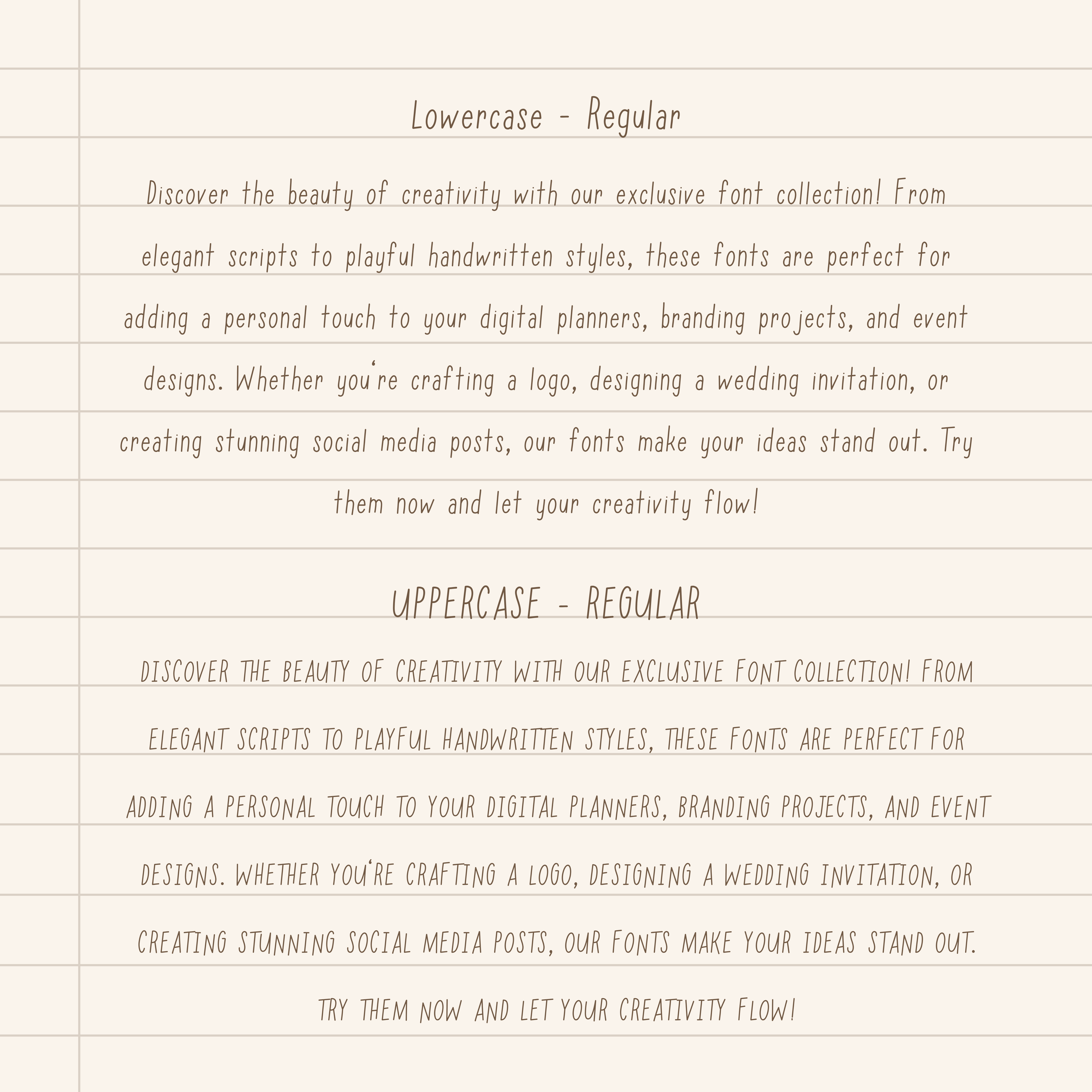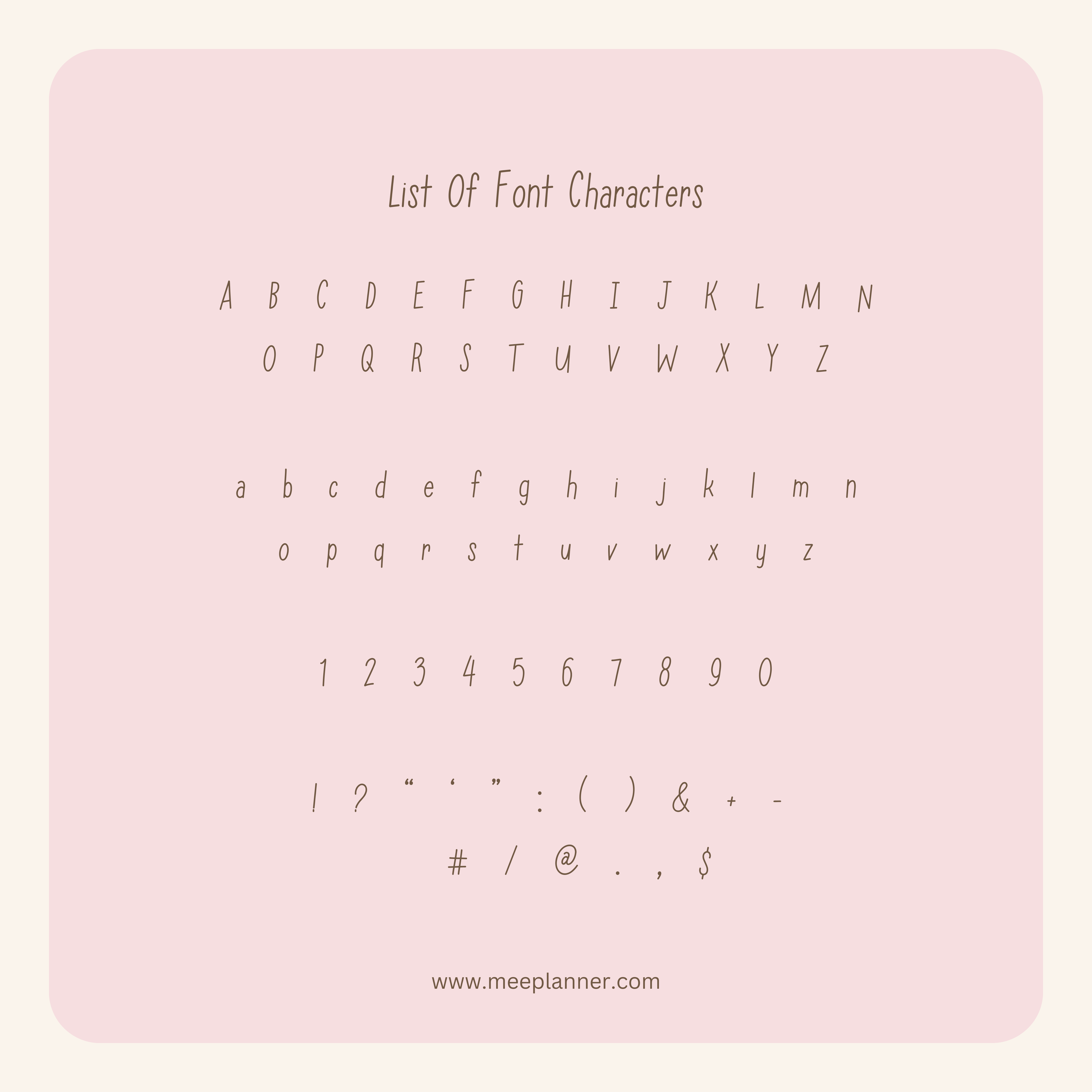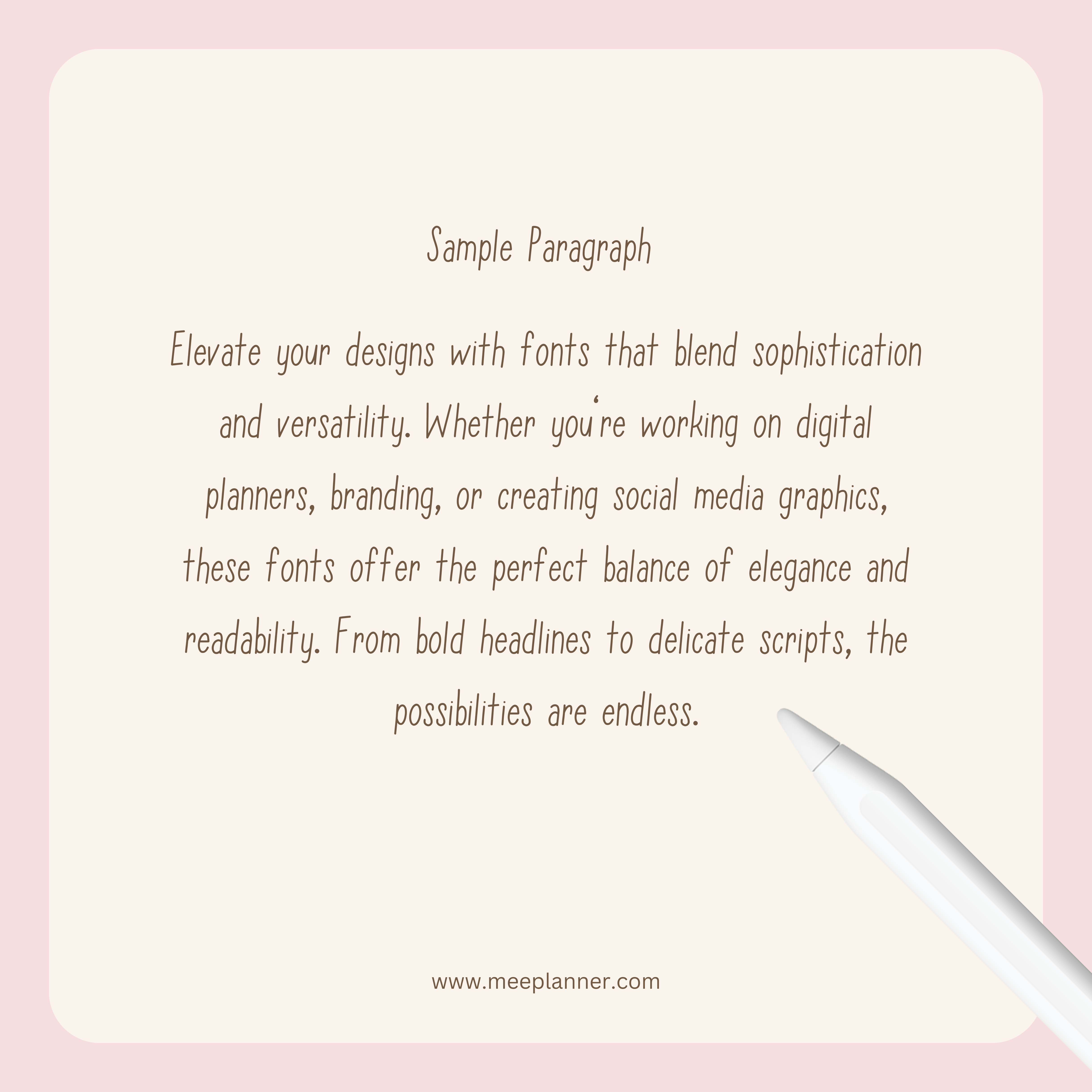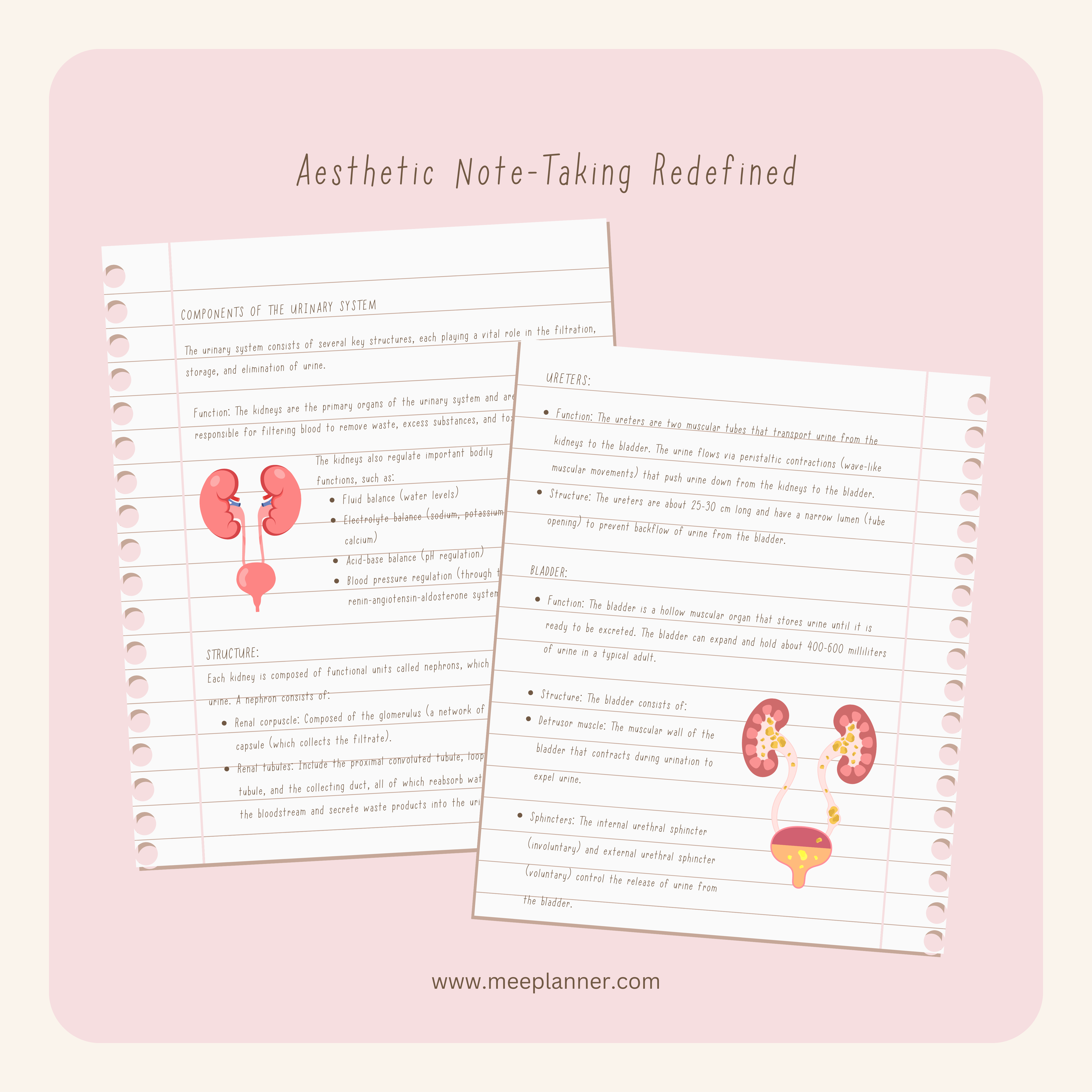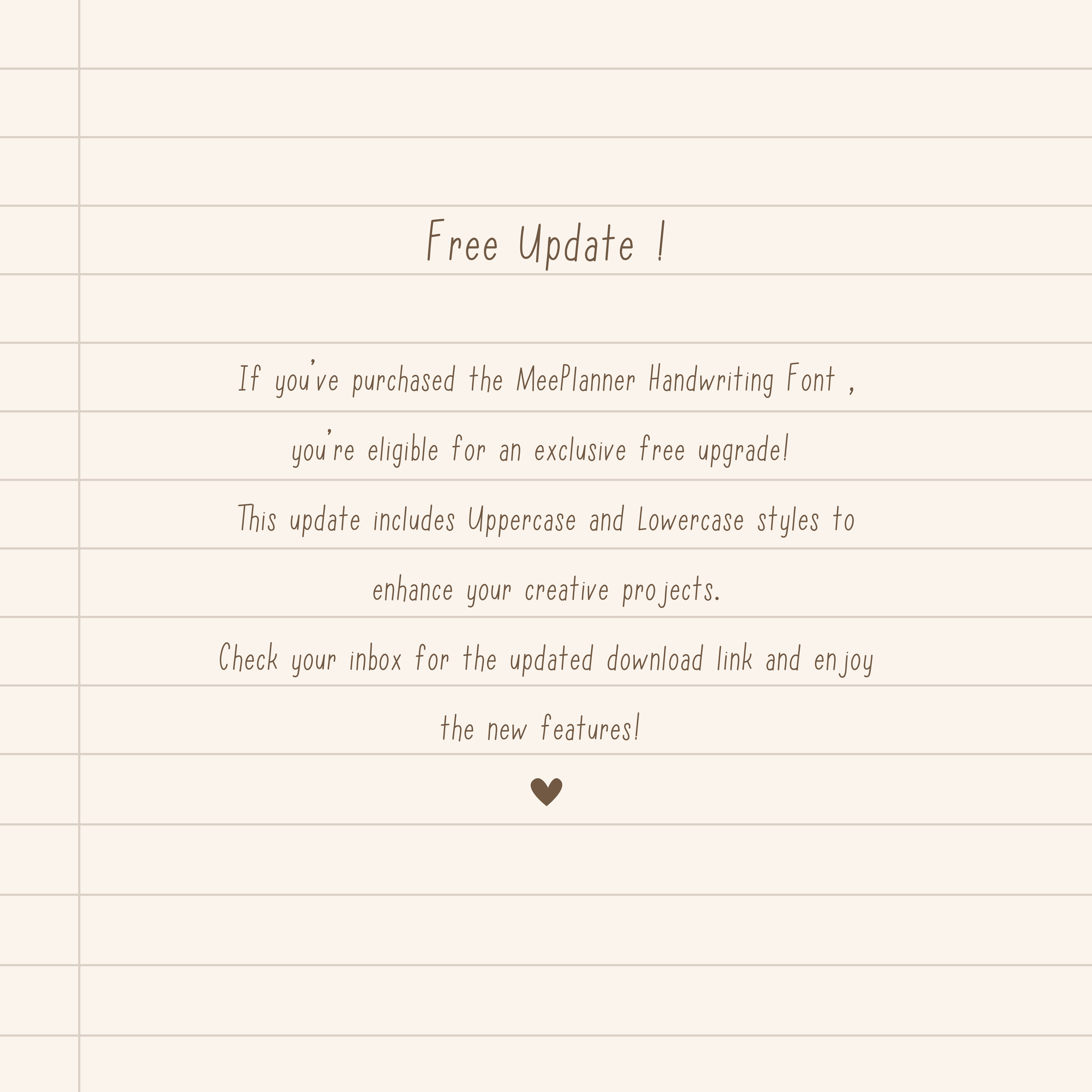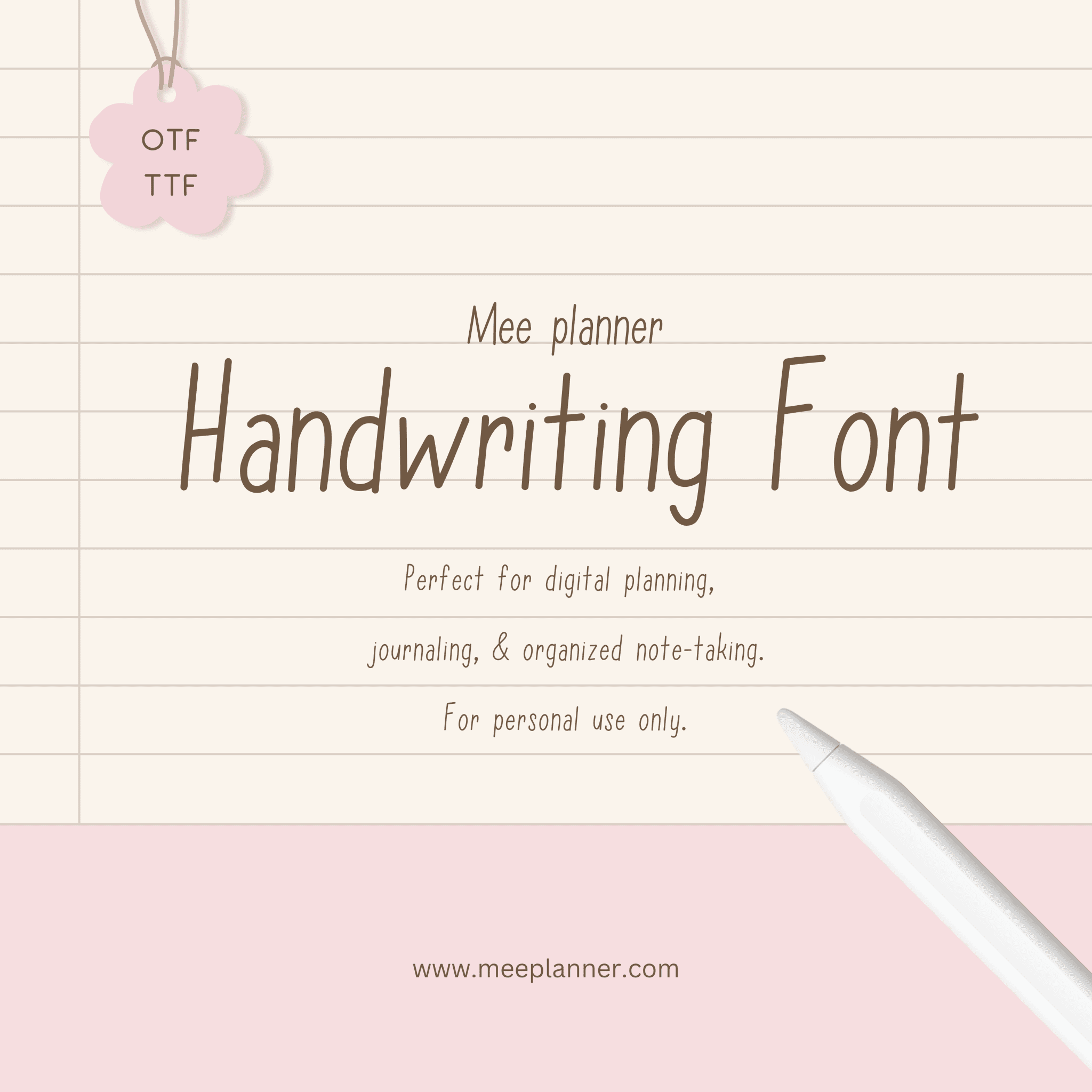
Add a personal and natural touch to your digital planners, notes, and journals with this cozy handwritten font. Designed to look authentic and feel effortless, it's perfect for all your creative projects.
Aesthetic Handwriting Font